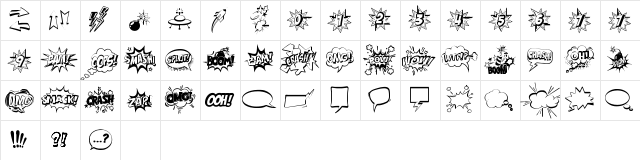
Complete Comic Boom Elements_DEMO Regular glyph index. Displaying only characters natively supported by Comic Boom Elements_DEMO Regular font.
Comic Boom Elements_DEMO has an approachable, lighthearted character - its loose, expressive forms are well-suited to children's content, casual branding, and fun-first design.
Font Pairing: Pairs well with a rounded or humanist sans for body copy, maintaining the friendly tone without relying on Comic Boom Elements_DEMO to carry extended reading.
Pro Tip: Use Comic Boom Elements_DEMO at larger display sizes where its expressive character can land. Pair with a clean, simple sans for body copy to maintain readability.